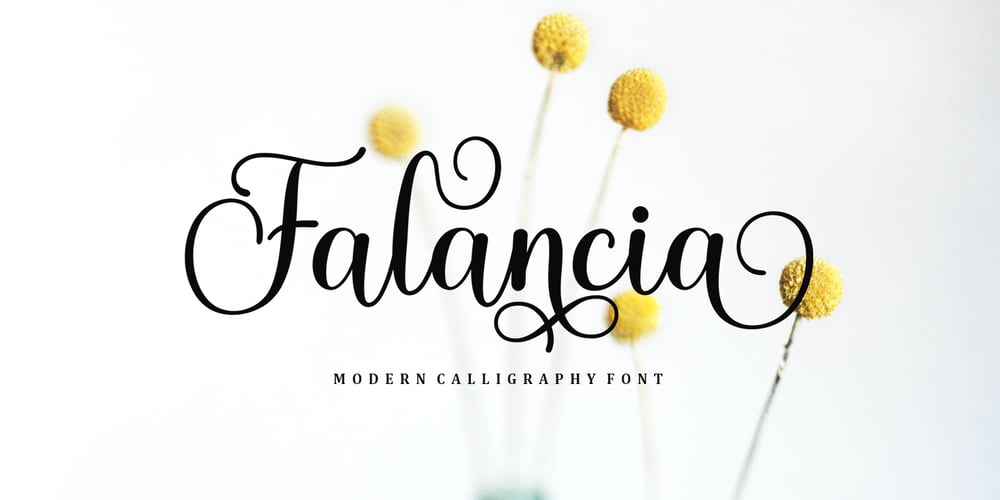
Falansia Font Family was designed by Mu Fazzal and published by Crowntype Studio. Falansia contains 1 styles and family package options. Falansia is a modern Calligraphy font created in an elegant and professional style with alternate characters. perfect font for creating signature logos and watermarks for photography studios or personal photography logos, best for initial logos or brand signatures. Falansia includes a full set of beautiful handwritten upper and lower case letters, numbers, assorted punctuation marks. All lowercase letters include starting and ending strokes, providing a realistic handwriting style.